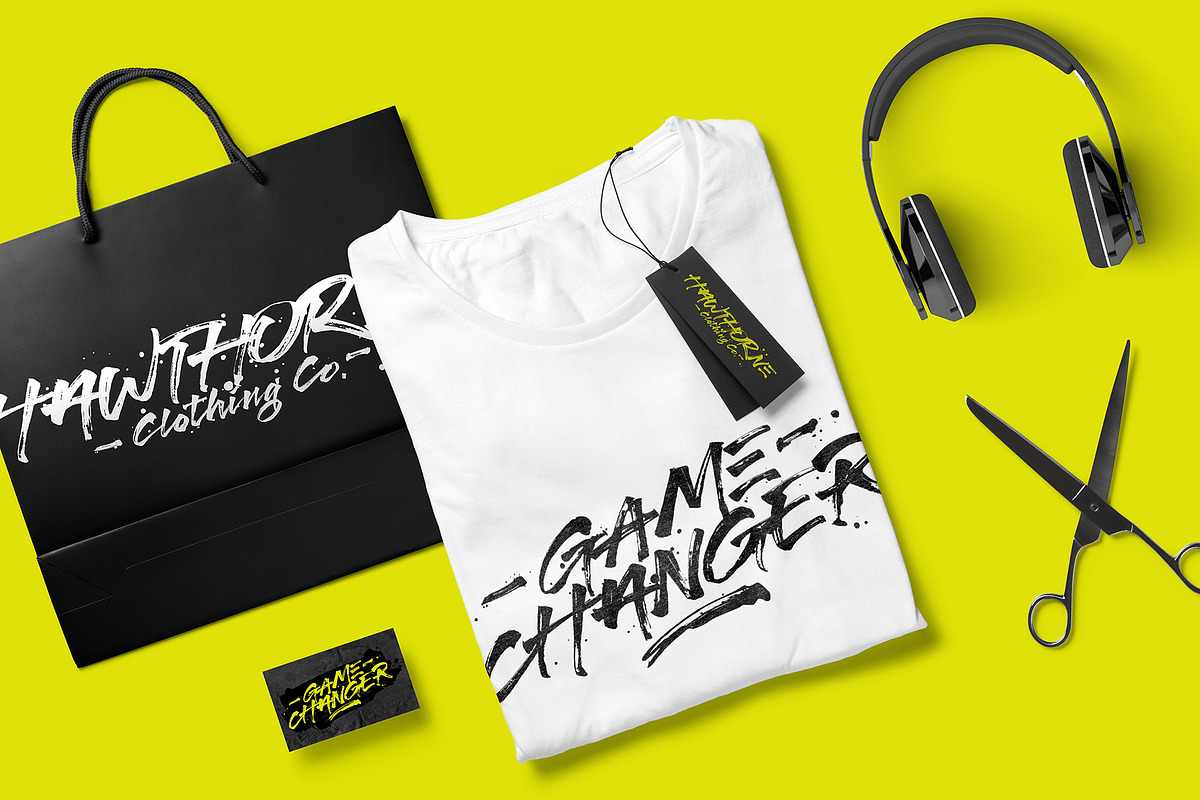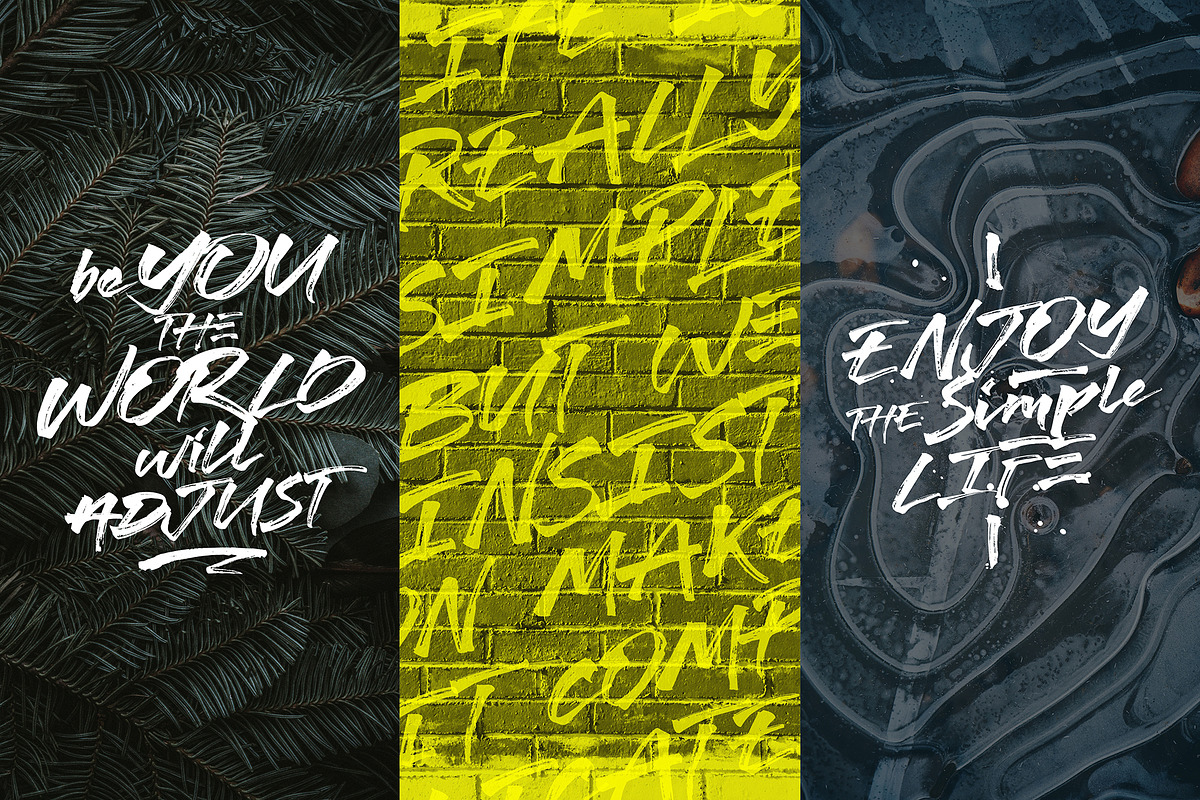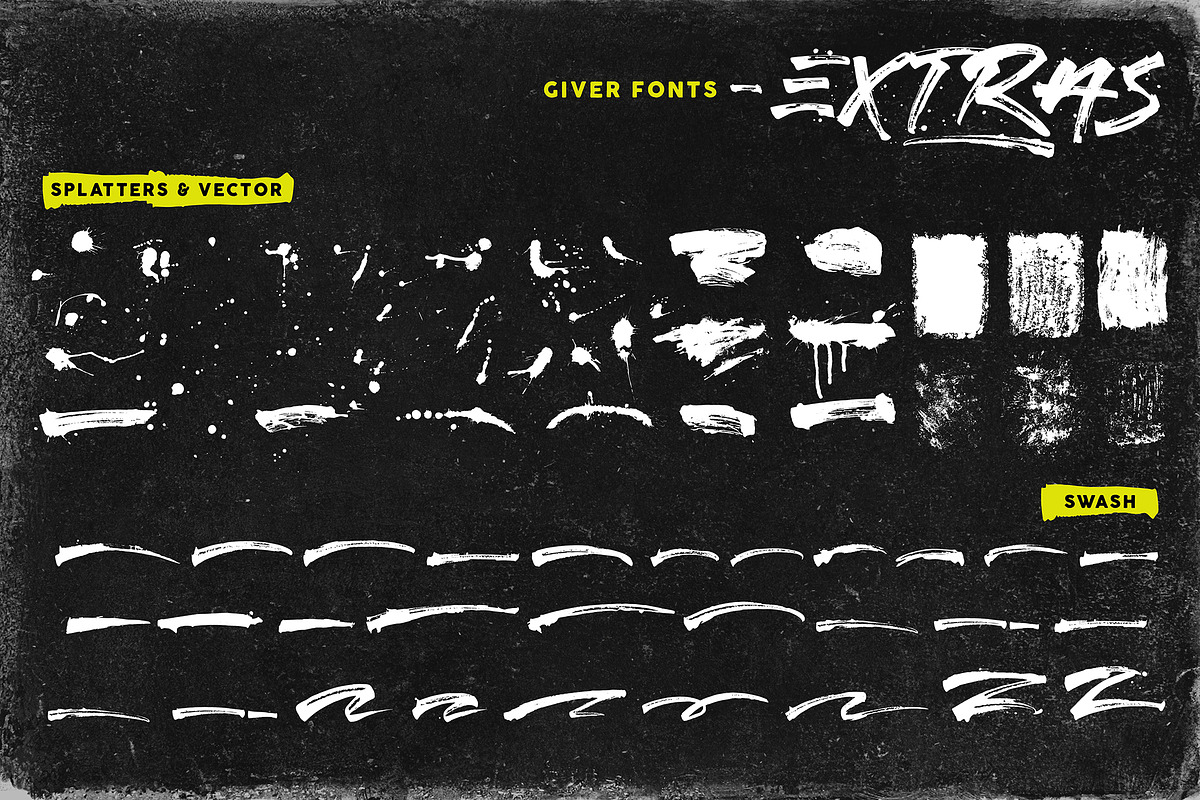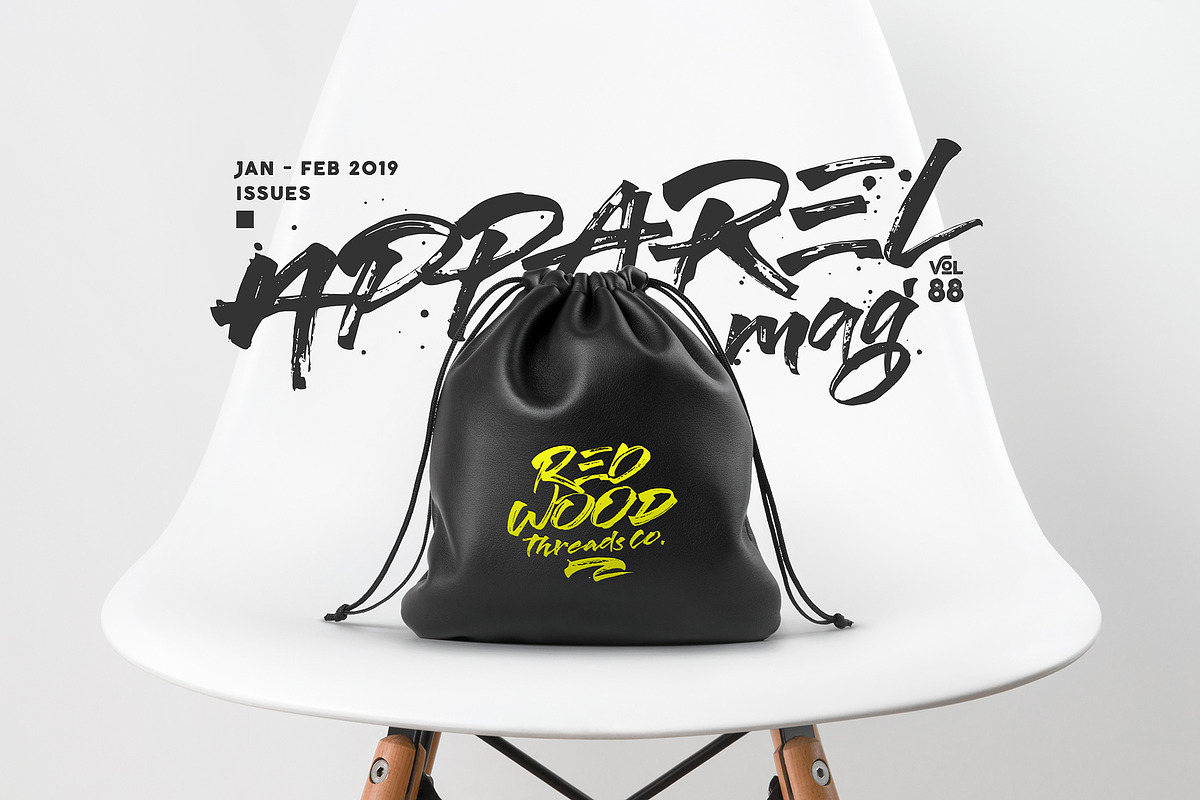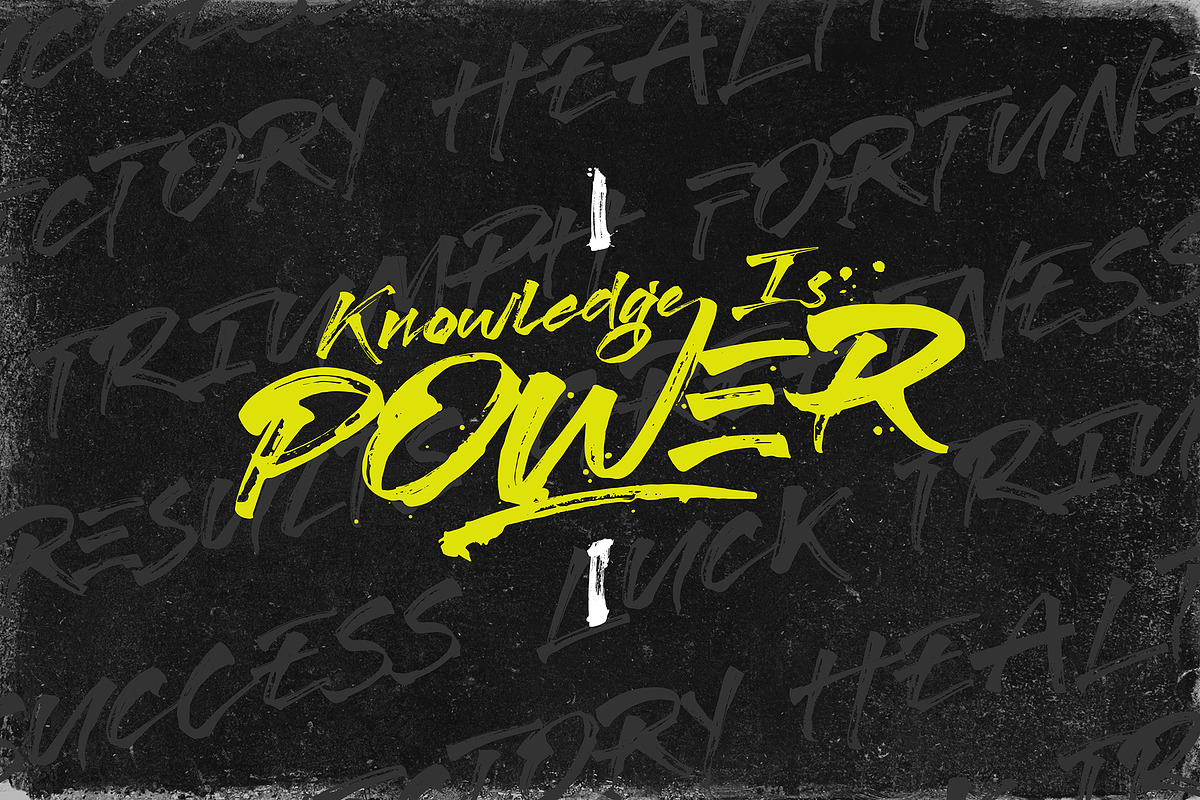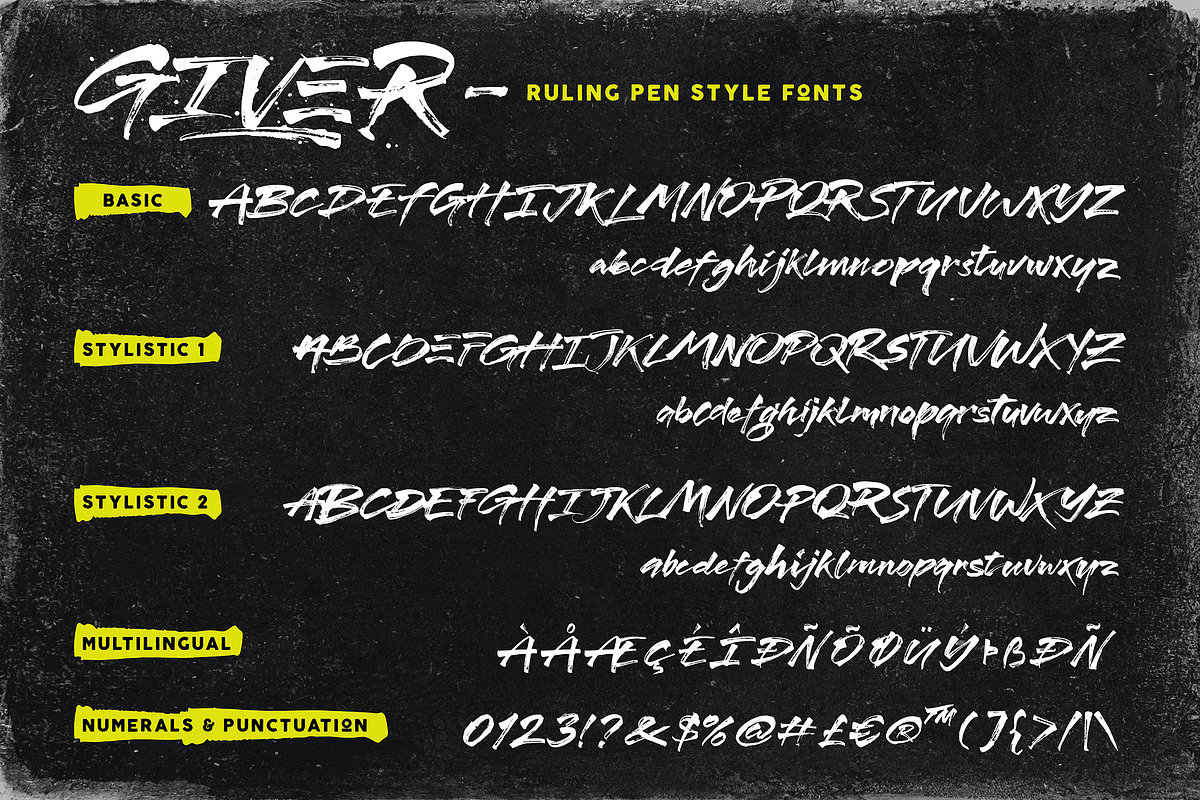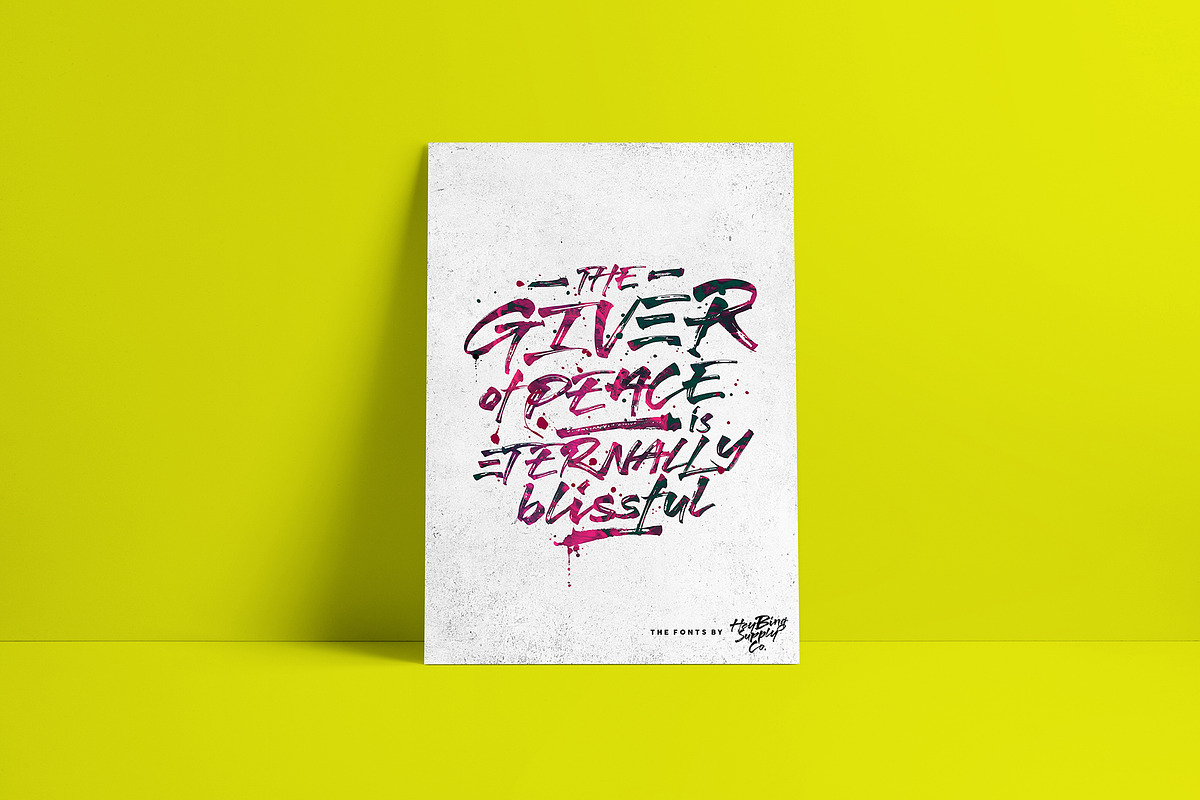
Giver Font + Extras
Giver Font represent the freedom of expression. it's shows the impression of spirit, spontaneity and optimism through the process that directly hand drawn with ink and ruling pen. Have a lot of customizations of each character, that make your artwork more natural looking, authentic and have it's own pride.
Giver Font includes a full set of character A-z, stylistic alternates of each character, as well as multi-lingual support, currency figures, numerals, and punctuation.
Perfect for : Branding, Book, Magazine, Logos, Greeting Cards, Stationery Design, Invitations, T-shirts, Apparel, Packaging designs, Posters, Typographic Design, and so much more.
Giver Font + Extras by Heybing Supply Co. fits naturally into Branding, posters, packaging, typography.